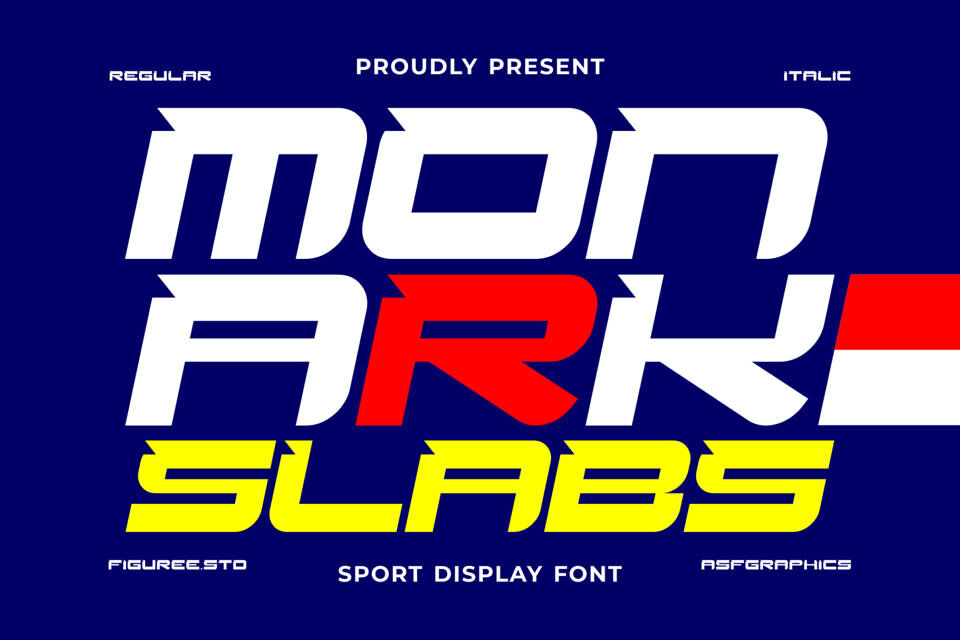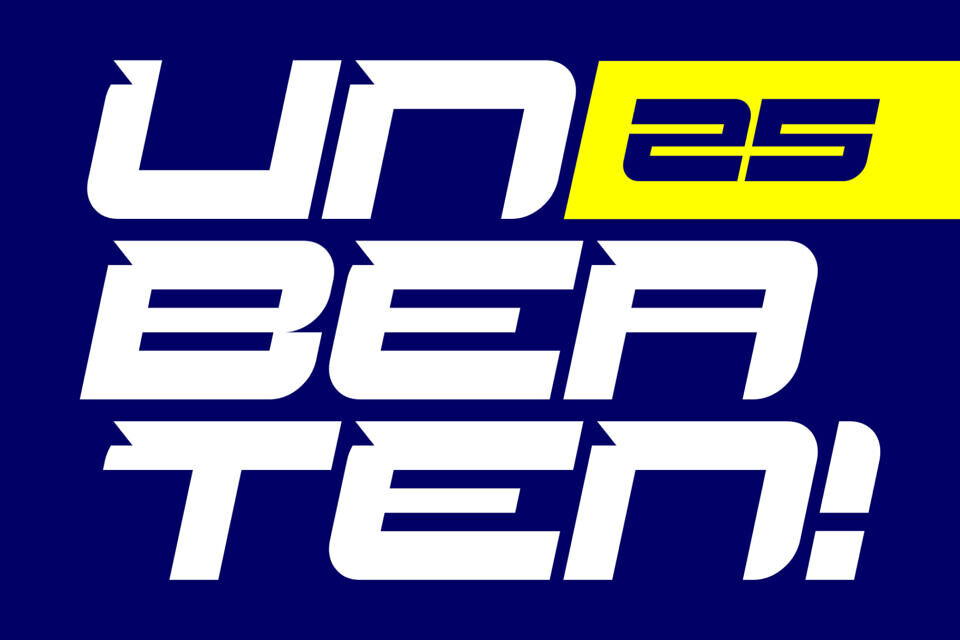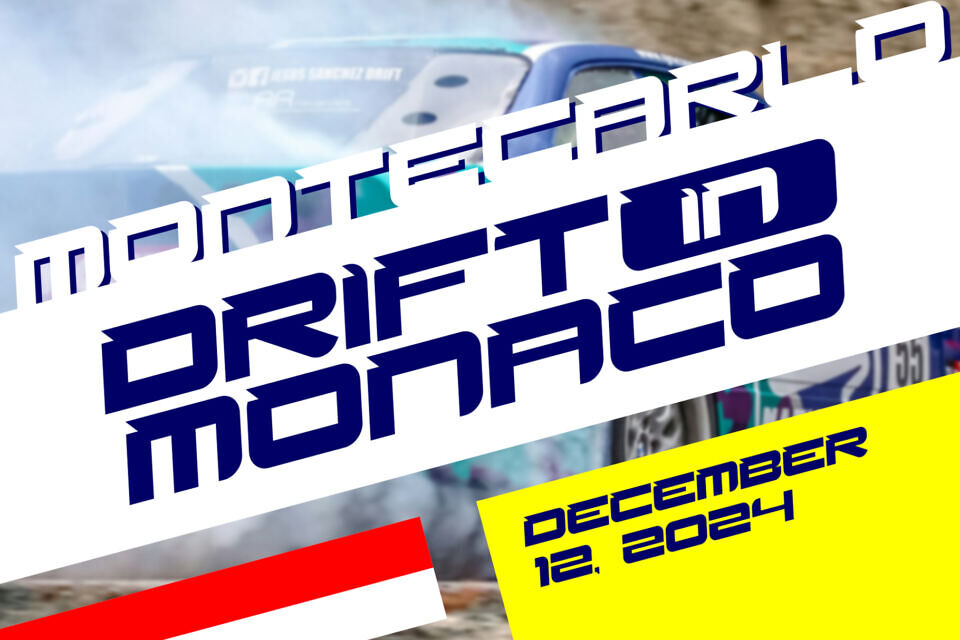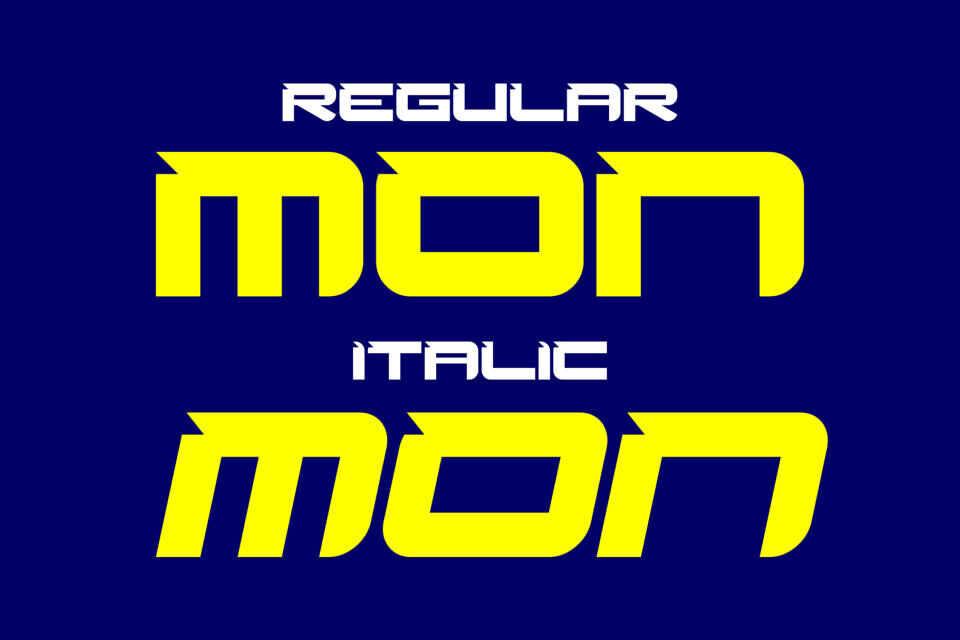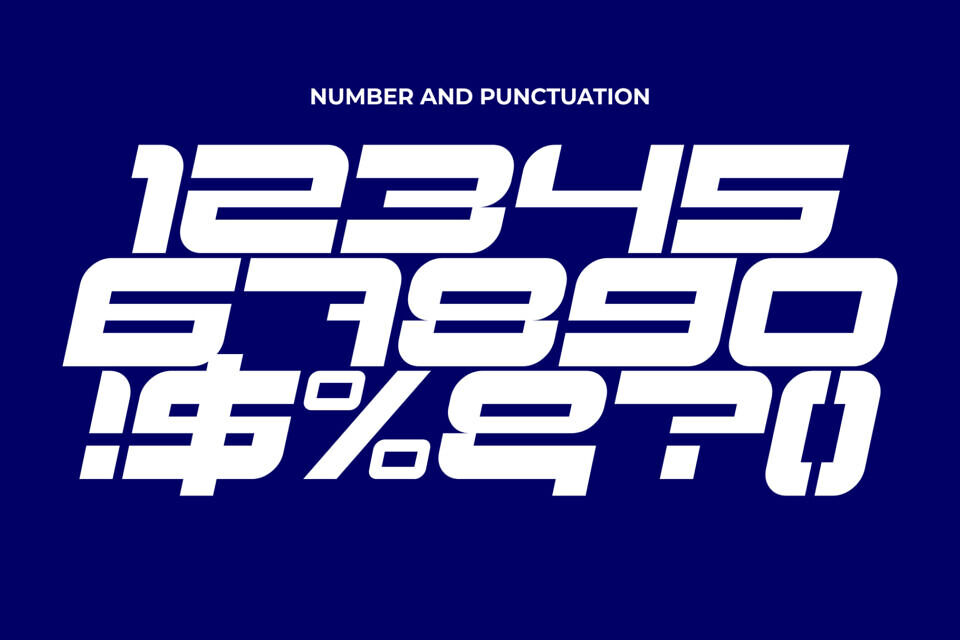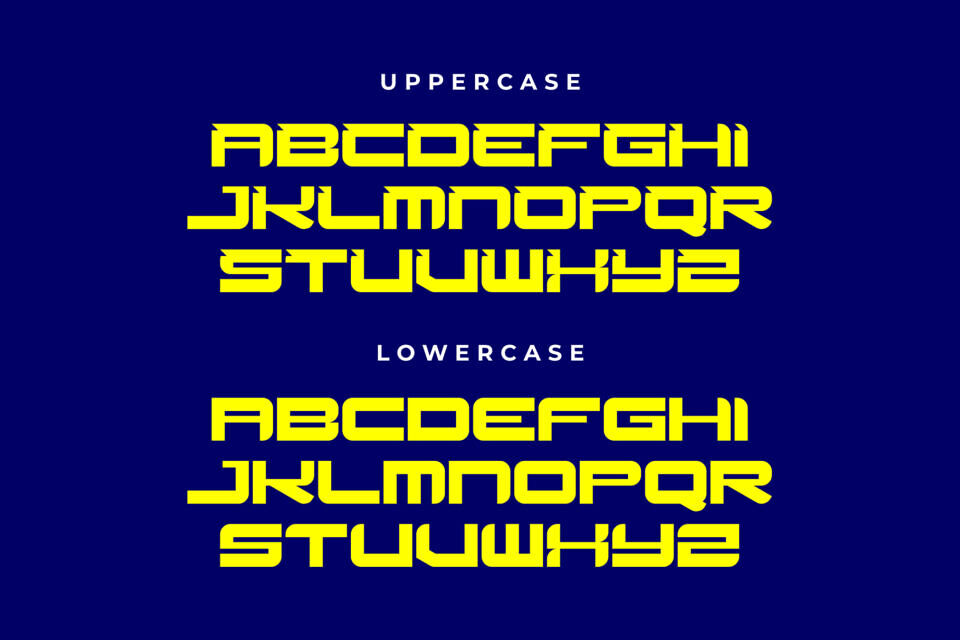
Monark Slabs Font
Monark Slab is a powerful sport display font designed to elevate modern branding with strength and impact. Featuring bold slab serifs, extended proportions, and dynamic styling, it delivers confidence across logos, posters, esports graphics, and athletic campaigns.
Available in Regular and Italic, this versatile font balances stability with energy—perfect for designs that demand authority and movement. Whether for stadium visuals, bold advertising, or competitive branding, Monark Slab ensures your typography communicates power, agility, and unmatched presence in every project.